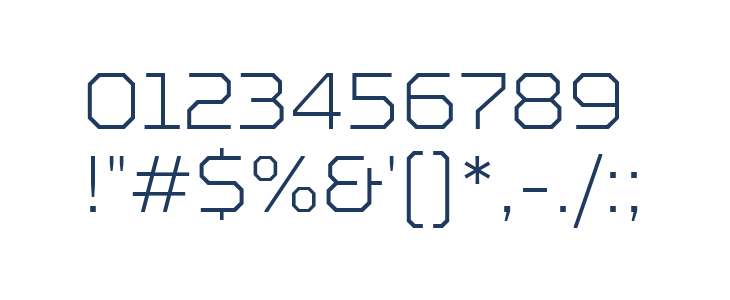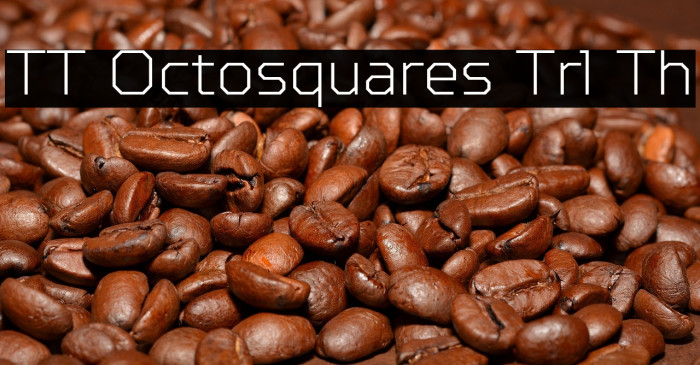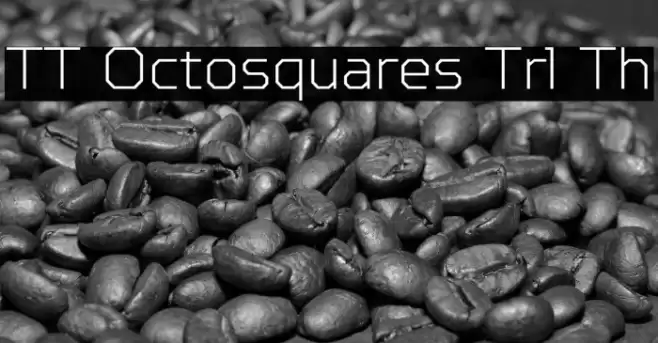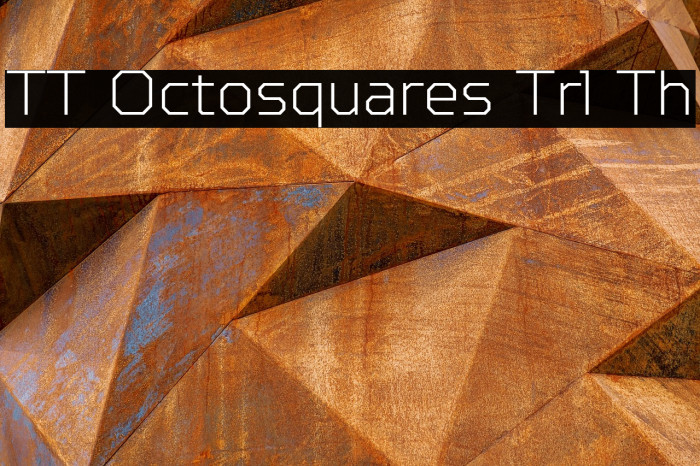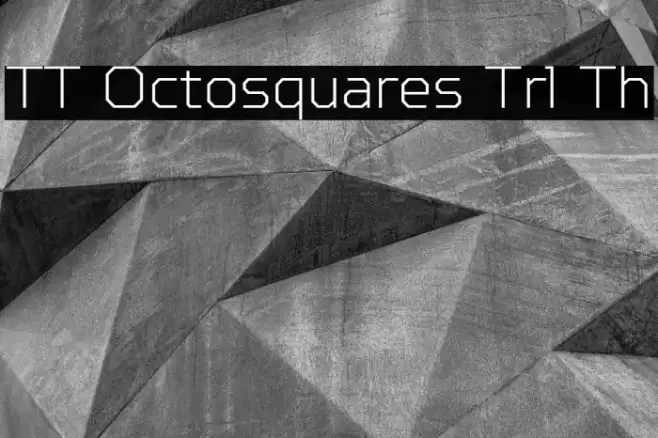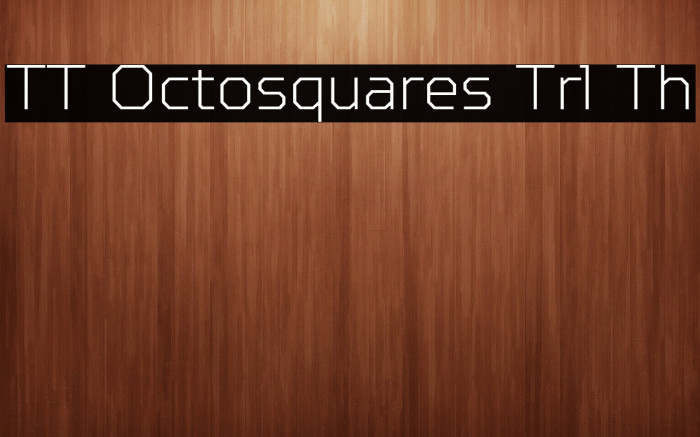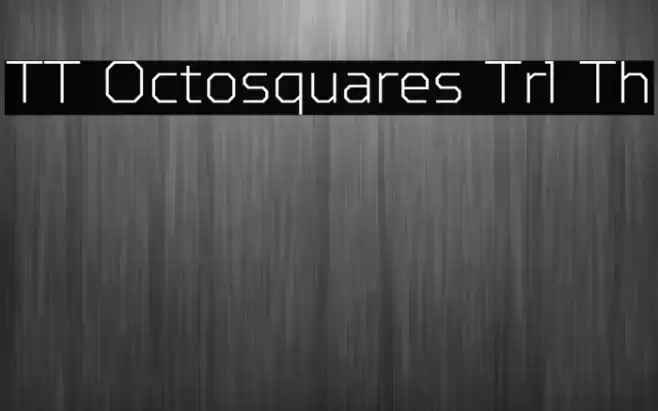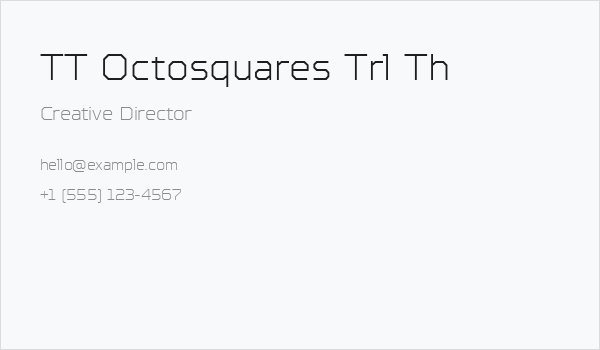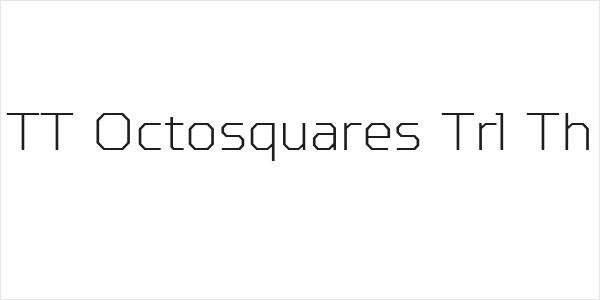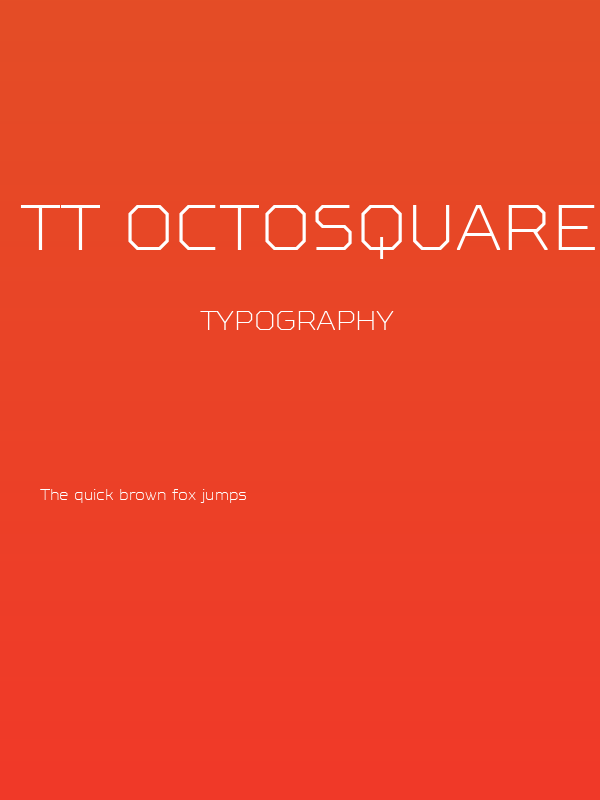
TT Octosquares Trl Th Font
TT Octosquares Trl Th Description
This font features a geometric, grid-like design with a modern and technical appearance. The characters are constructed with straight lines and sharp angles, giving them a structured and precise look. The uppercase and lowercase letters maintain a consistent height, contributing to a uniform and orderly aesthetic. The numerals and special characters follow the same design principles, ensuring a cohesive visual style across all glyphs. This font's distinct, angular form makes it suitable for projects that require a futuristic or tech-oriented feel.
| Use Case | Logos, Headlines, Digital interfaces |
| Proposed Projects | Ideal for tech branding, digital interfaces, modern posters, and futuristic design projects. |